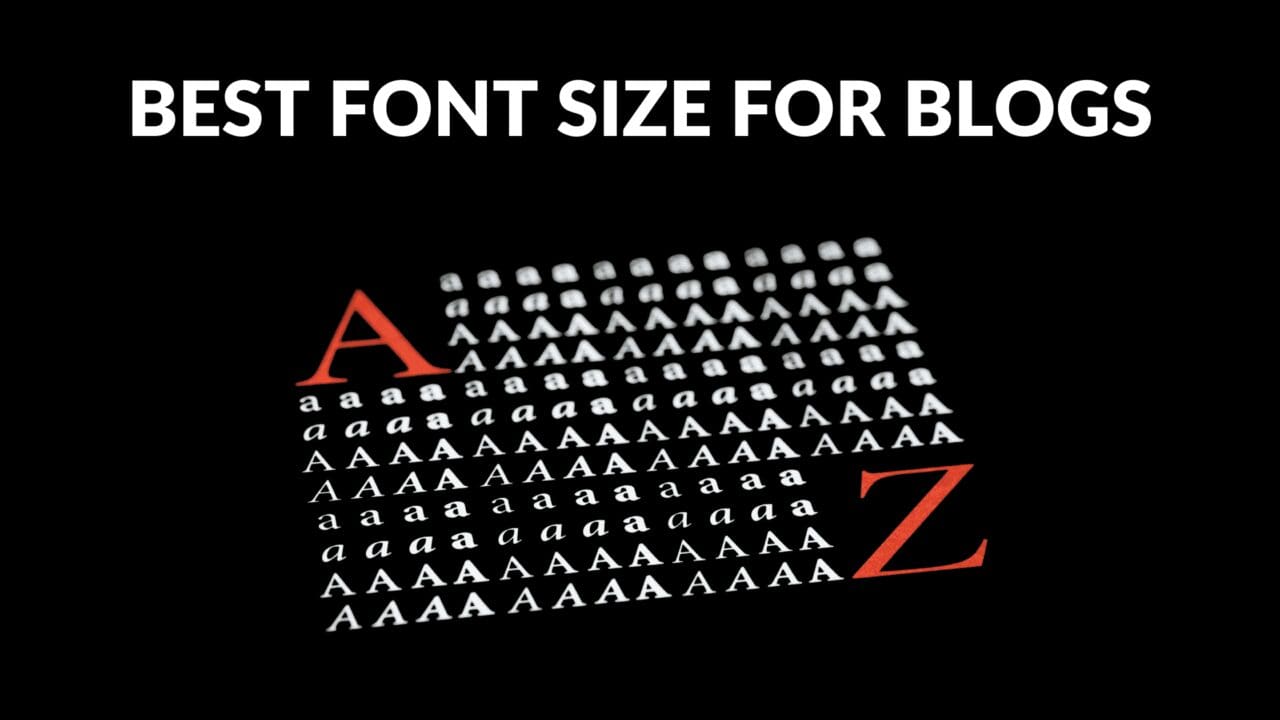
Best Font Size For Laptop Screen . Picking the right font sizes can ensure that your typography is just as responsive as the rest of your website, from desktop to mobile and beyond. Notice that the relative space taken up by each font is different at different point sizes. The text should be large enough to read. First, settings > display > display size allows you to adjust the overall display size. In this post, we’ll cover what font size to use for a modern, responsive website. Additionally, you can also adjust font sizing: Mobile devices and laptops vary in size, so it’s crucial to choose a font size that’s readable across different screen dimensions. Here is a simple listing showing arial, segoe ui, and tahoma fonts at various sizes. Verdana was designed to be readable at small sizes on a computer screen. First, i’ll give an overview, then we’ll cover mobile guidelines. For optimal readability, a font size of at least 16 pixels is. What font size and spacing should be used for optimal readability?
First, settings > display > display size allows you to adjust the overall display size. Here is a simple listing showing arial, segoe ui, and tahoma fonts at various sizes. Mobile devices and laptops vary in size, so it’s crucial to choose a font size that’s readable across different screen dimensions. For optimal readability, a font size of at least 16 pixels is. Notice that the relative space taken up by each font is different at different point sizes. Verdana was designed to be readable at small sizes on a computer screen. In this post, we’ll cover what font size to use for a modern, responsive website. What font size and spacing should be used for optimal readability? First, i’ll give an overview, then we’ll cover mobile guidelines. Picking the right font sizes can ensure that your typography is just as responsive as the rest of your website, from desktop to mobile and beyond.
Best Font Size For Laptop Screen Picking the right font sizes can ensure that your typography is just as responsive as the rest of your website, from desktop to mobile and beyond. Picking the right font sizes can ensure that your typography is just as responsive as the rest of your website, from desktop to mobile and beyond. For optimal readability, a font size of at least 16 pixels is. Additionally, you can also adjust font sizing: In this post, we’ll cover what font size to use for a modern, responsive website. First, settings > display > display size allows you to adjust the overall display size. Mobile devices and laptops vary in size, so it’s crucial to choose a font size that’s readable across different screen dimensions. First, i’ll give an overview, then we’ll cover mobile guidelines. Verdana was designed to be readable at small sizes on a computer screen. Notice that the relative space taken up by each font is different at different point sizes. Here is a simple listing showing arial, segoe ui, and tahoma fonts at various sizes. What font size and spacing should be used for optimal readability? The text should be large enough to read.
Printable Font Size Chart Best Font Size For Laptop Screen Notice that the relative space taken up by each font is different at different point sizes. Verdana was designed to be readable at small sizes on a computer screen. First, settings > display > display size allows you to adjust the overall display size. What font size and spacing should be used for optimal readability? Picking the right font sizes. Best Font Size For Laptop Screen.
How to the Change Font Size in Windows 10 Best Font Size For Laptop Screen The text should be large enough to read. In this post, we’ll cover what font size to use for a modern, responsive website. Additionally, you can also adjust font sizing: First, settings > display > display size allows you to adjust the overall display size. Mobile devices and laptops vary in size, so it’s crucial to choose a font size. Best Font Size For Laptop Screen.
De grootte van het lettertype wijzigen op een computer wikiHow Best Font Size For Laptop Screen First, i’ll give an overview, then we’ll cover mobile guidelines. Picking the right font sizes can ensure that your typography is just as responsive as the rest of your website, from desktop to mobile and beyond. Mobile devices and laptops vary in size, so it’s crucial to choose a font size that’s readable across different screen dimensions. First, settings >. Best Font Size For Laptop Screen.
8 Easy Ways to Change Font Size on a Computer wikiHow Best Font Size For Laptop Screen First, i’ll give an overview, then we’ll cover mobile guidelines. First, settings > display > display size allows you to adjust the overall display size. Additionally, you can also adjust font sizing: What font size and spacing should be used for optimal readability? For optimal readability, a font size of at least 16 pixels is. The text should be large. Best Font Size For Laptop Screen.